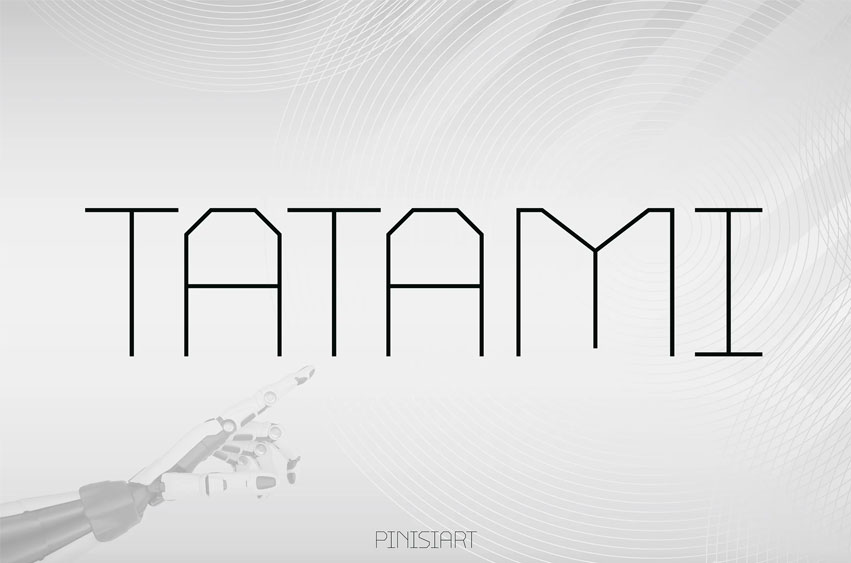
Tatami Font is a clean, elegant geometric sans-serif that fuses modern Japanese design cues with futuristic minimalism. With a sharp balance between function and aesthetic, this font is tailor-made for tech-forward branding, digital interfaces, and clean layout-driven visuals. Its slim letterforms and precise angles give off a cutting-edge, almost sci-fi-like presence, yet still maintain calm visual clarity.
TATAMI thrives in technology brands, mobile UI mockups, metaverse campaigns, sci-fi posters, and Japanese-inspired packaging. From startup software logos to robotics ads and VR dashboards, it speaks fluently in the language of innovation and minimalism.
Every glyph reflects a disciplined design—structured yet distinctive, technical yet elegant.
TATAMI is the font that makes your design feel like tomorrow—minimal, intentional, and hyper-modern. It’s made for those pushing boundaries, shaping the future, and building visual systems for a sleek digital world.
• Modern Geometric Sans-Serif – Sleek shapes with a futuristic, digital presence
• Full Character Set – Includes uppercase, lowercase, numbers, and punctuation
• Perfect for Tech & UI – Built for clean screens, app mockups, and sci-fi content
• Subtle Japanese Influence – Inspired by structured simplicity and modular balance
• Great in Light & Dark Modes – Readable and striking on all digital backgrounds
• Ready for Branding Systems – Use across headers, logos, and high-tech product visuals
TATAMI isn’t just a visual style—it’s a design system in font form. It helps you express modernity, clarity, and structured ambition all in one unified typeface.